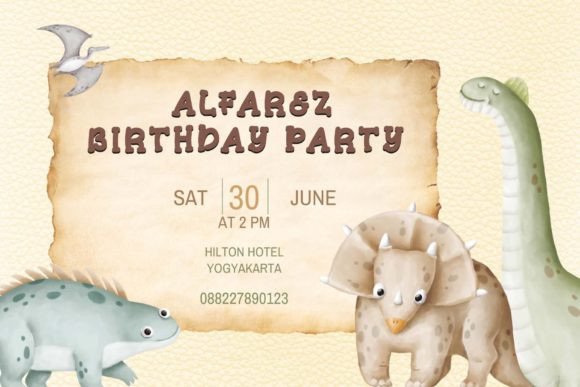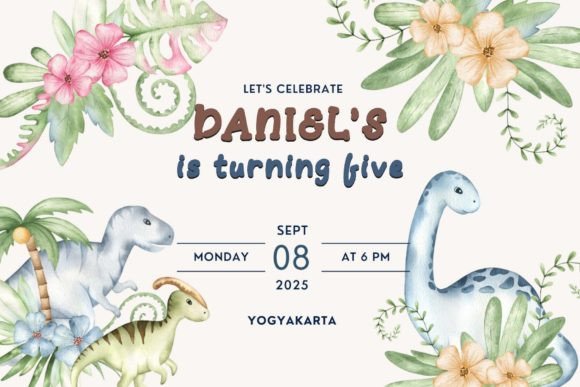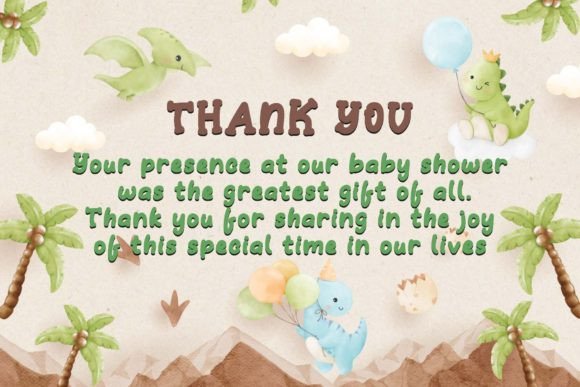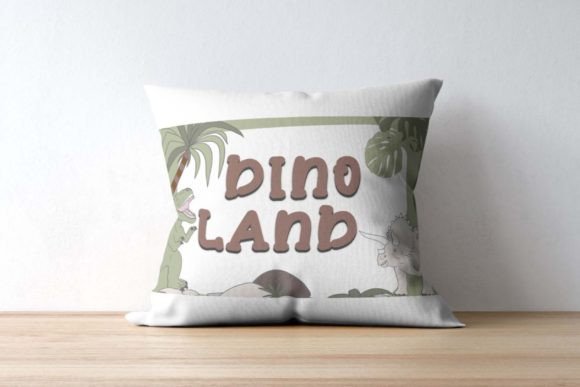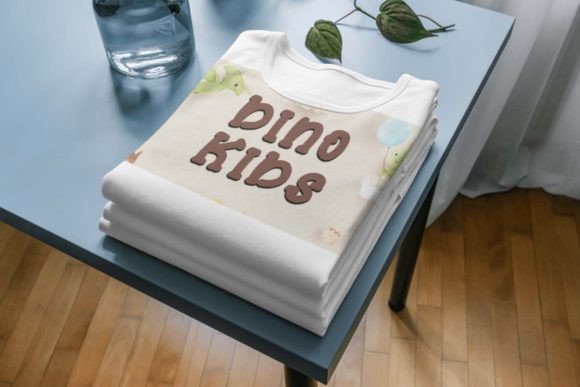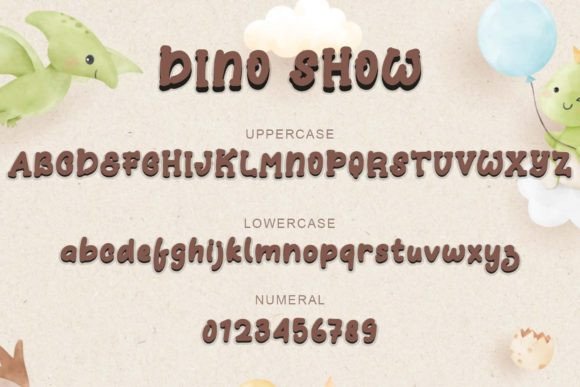
Dino Show Font: The Ultimate Display Font for Creative Projects
Are you a designer or crafter looking for a unique and playful font to add some excitement to your creative projects? Look no further than the Dino Show font! This adorable display font is perfect for a wide range of applications, from comics and logos to banners, posters, and more.
What Makes Dino Show Font So Special?
The Dino Show font is a one-of-a-kind display font that is sure to capture the attention of your audience. Its cute and playful design makes it ideal for projects that require a fun and youthful vibe. Here are some of the key features that make this font so special:
- Uppercase and Lowercase Letters: The Dino Show font includes both uppercase and lowercase letters, giving you the flexibility to create a wide range of designs.
- Numerals and Punctuations: The font also includes numerals and punctuations, making it a complete and versatile font for all your design needs.
- Multilingual Support: The Dino Show font supports multiple languages, making it a great choice for designers who work with international clients or want to create designs for a global audience.
The Dino Show font is incredibly versatile and can be used for a wide range of projects, including:
- Comics: Add a playful touch to your comic books or graphic novels with the Dino Show font.
- Logos: Create a fun and memorable logo for your business or brand with this unique font.
- Banners: Use the Dino Show font to create eye-catching banners for events, promotions, or sales.
- Posters: Create stunning posters for movies, concerts, or theater productions with this bold and playful font.
- Prints: Use the Dino Show font to create fun and colorful prints for kids, such as activity sheets or coloring pages.
- Stickers: Design adorable stickers for kids or use them as promotional materials for your business.
- Branding: Use the Dino Show font to create a consistent brand identity for your business or product.
- Cartoons: Add a playful touch to your cartoons or animations with this fun font.
- Kids: The Dino Show font is perfect for projects targeting kids, such as children’s books, educational materials, or kids’ party decorations.
- Back to School: Use the font to create fun and engaging back to school materials, such as worksheets or activity sheets.
- Summer: Create summer-themed designs, such as posters or banners, with the Dino Show font.
- Christmas: Use the font to create festive and fun Christmas designs, such as holiday cards or decorations.
Why Choose the Dino Show Font?
There are many reasons why you should choose the Dino Show font for your next project. Here are a few:
- Unique Design: The Dino Show font has a one-of-a-kind design that will set your project apart from others.
- Playful and Fun: The font’s playful and fun design makes it perfect for projects that require a youthful and energetic vibe.
- Versatile: The font is incredibly versatile and can be used for a wide range of projects.
- Easy to Read: Despite its playful design, the Dino Show font is easy to read, making it perfect for body text or headings.